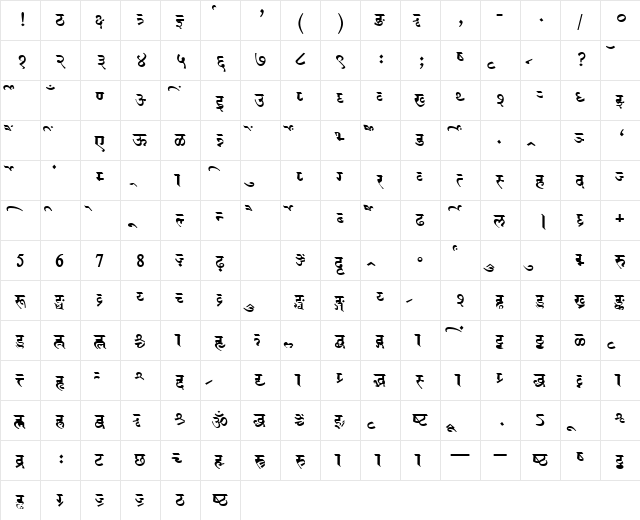
AkrutiDevOmkar Bold
Design Context for AkrutiDevOmkar Typeface
AkrutiDevOmkar offers clean, dependable letterforms without strong stylistic allegiance, making it a practical choice for designers who need flexibility. The heavy weight commands attention and anchors typographic hierarchies.